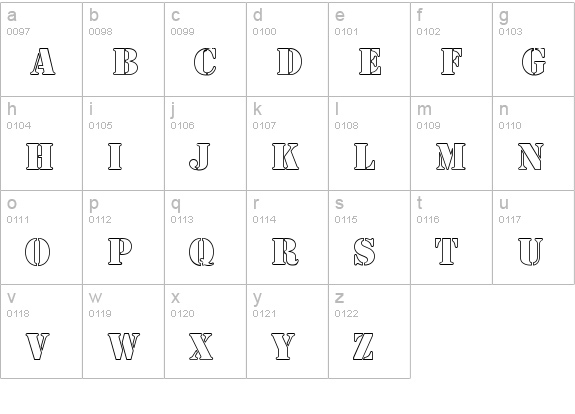
Army Hollow font is a striking display typeface that exudes strength and power. With its bold, angular shapes and military-inspired design, this font makes a bold statement in any project. The unique hollowed-out style adds a modern twist to a classic military aesthetic, making it perfect for posters, logos, headlines, and more. What's even better is that Army Hollow font is available for free download at FontsMarket.com. This means you can easily add this eye-catching font to your collection without breaking the bank. Whether you're creating a design for a military-themed event or simply looking to add some edge to your typography, Army Hollow font is a versatile and impactful choice. Download it today and take your designs to the next level!